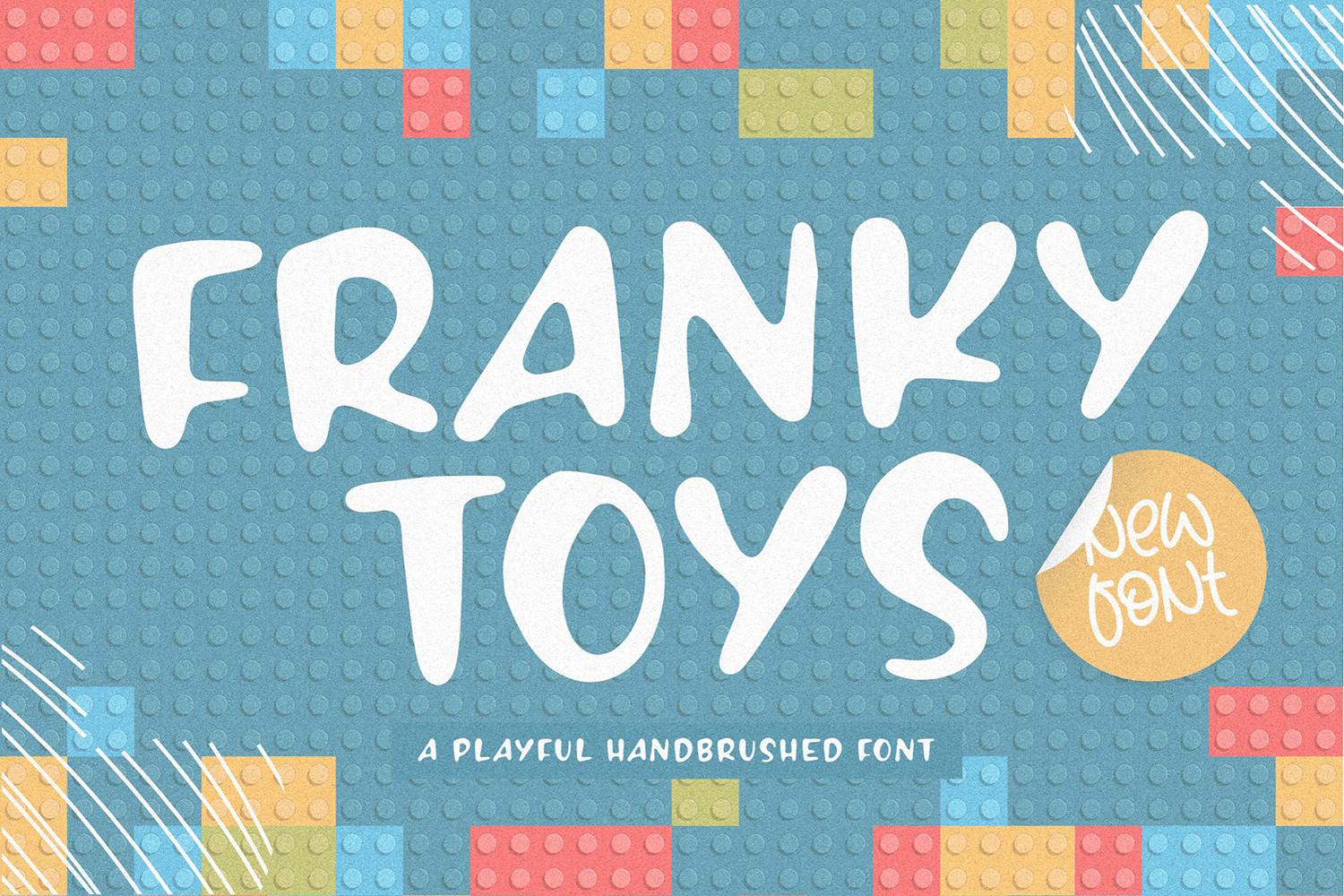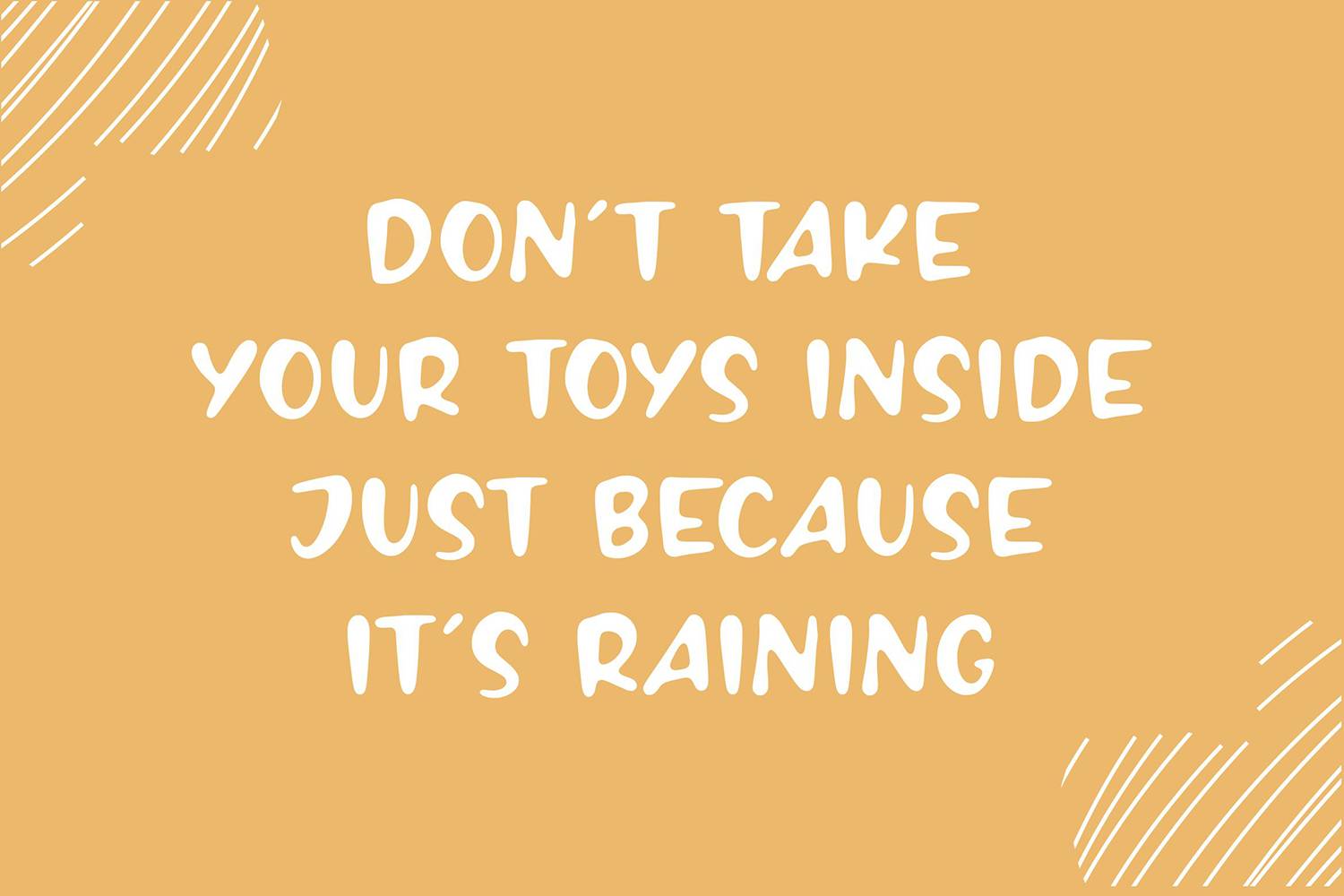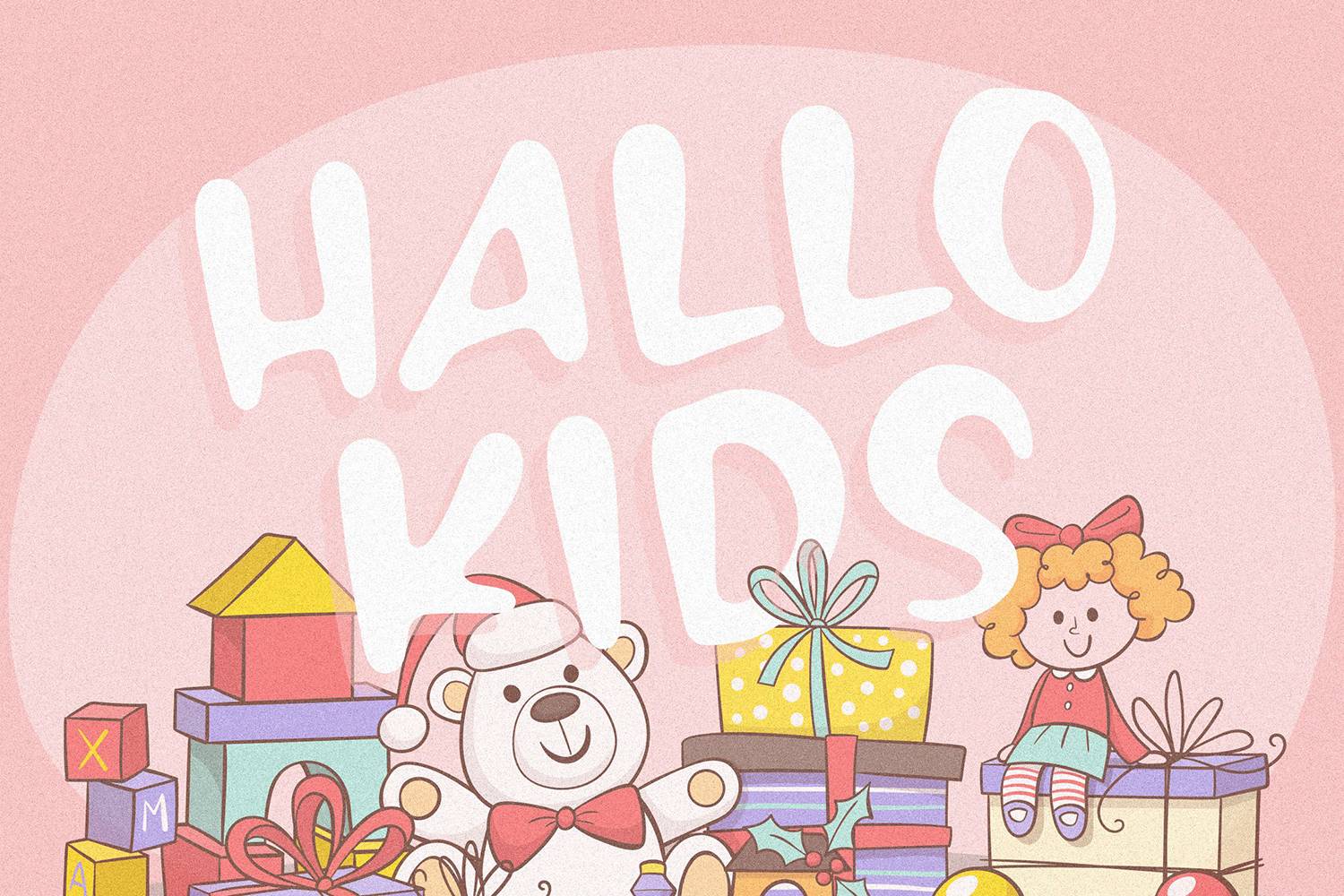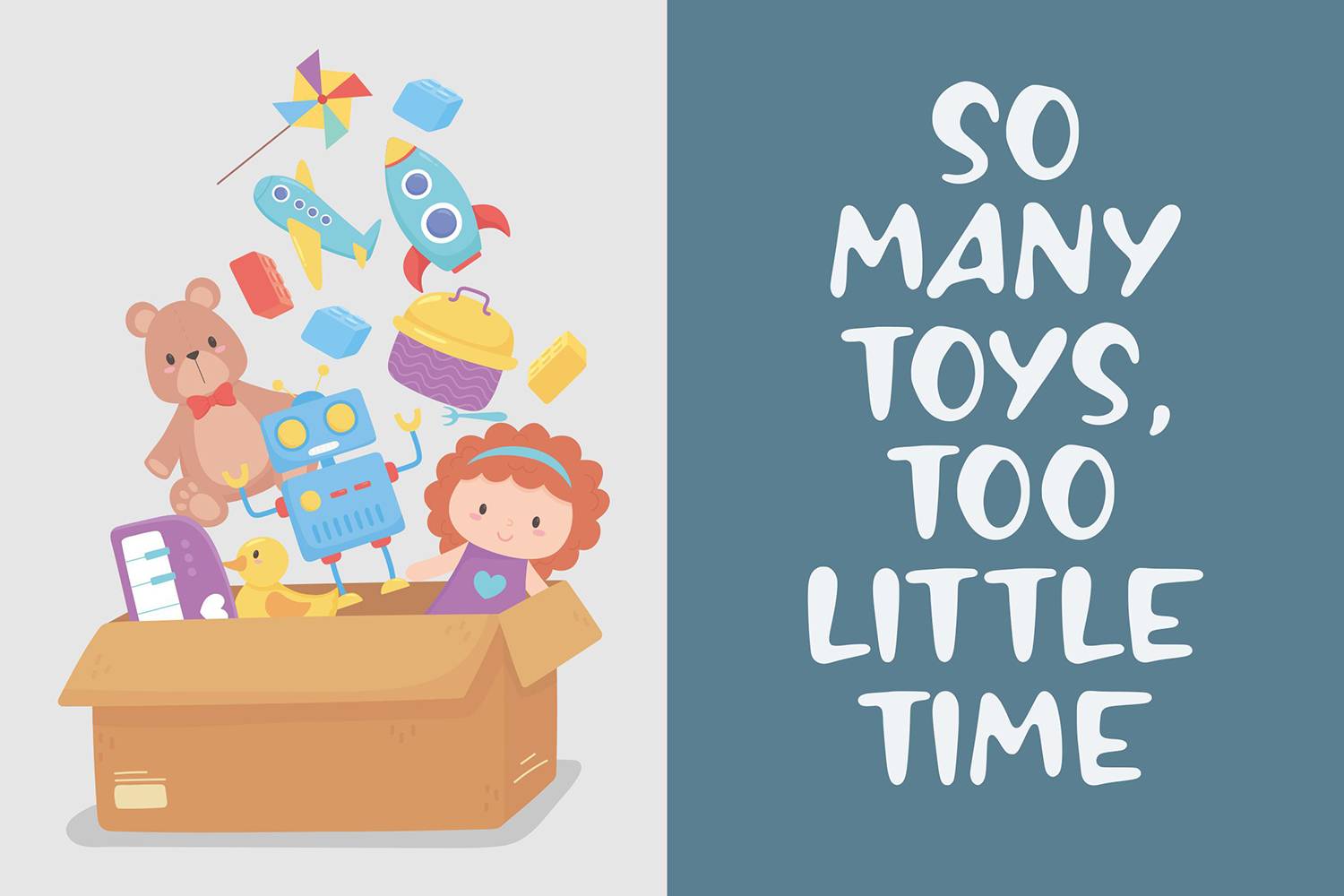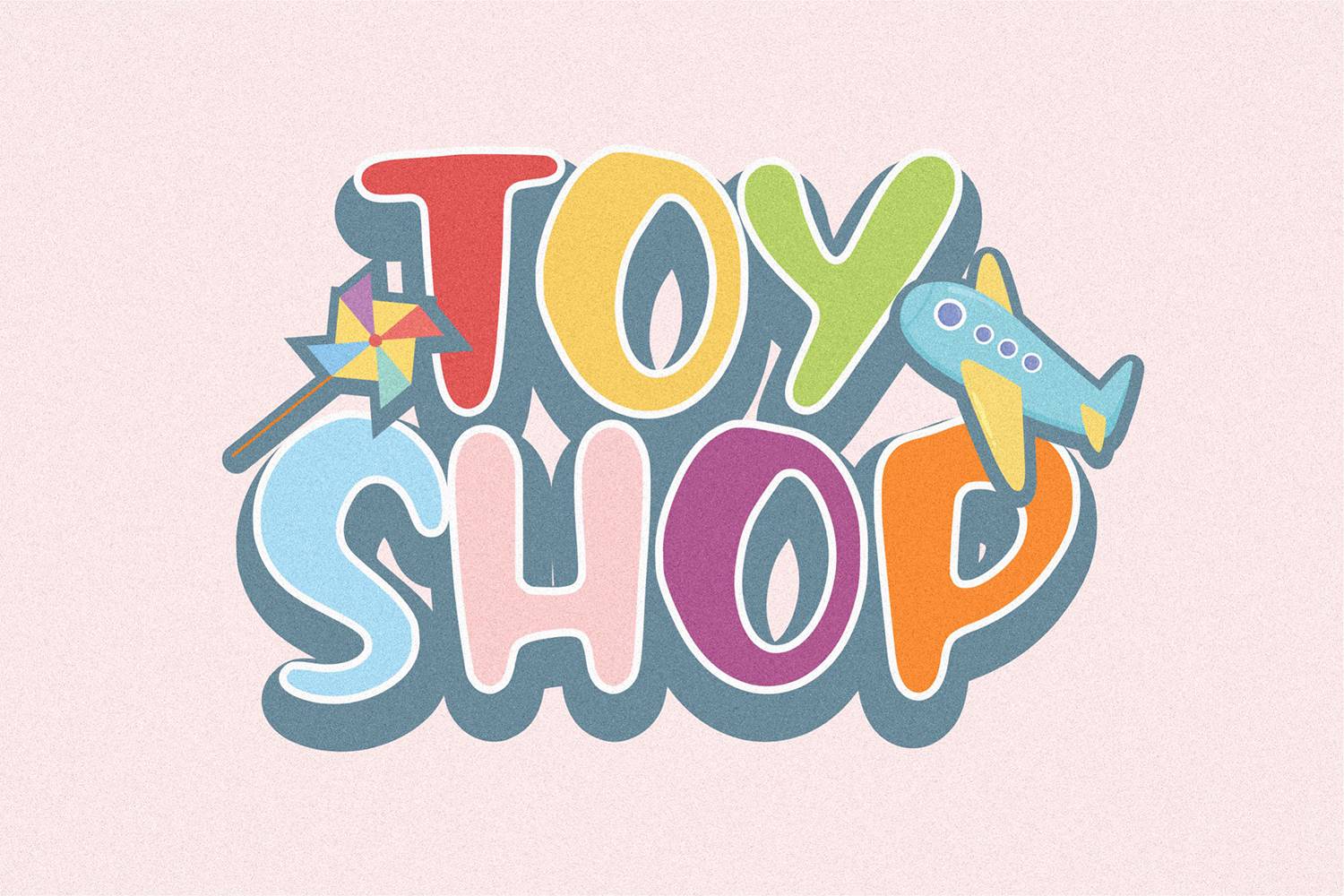
Franky Toys is a playful, bold sans serif font with a hand-drawn feel, characterized by its thick, rounded strokes and lively, irregular shapes. Its friendly, whimsical style makes it ideal for children's products, casual branding, and fun, lighthearted design projects. This font works best in headlines, logos, and packaging where a cheerful, approachable vibe is desired.
Franky Toys Font
About Franky Toys Font